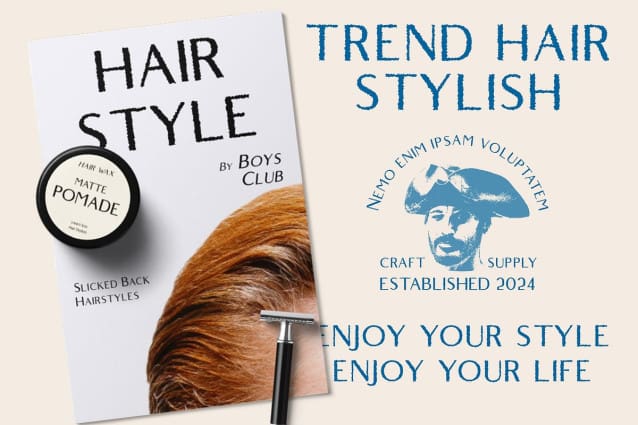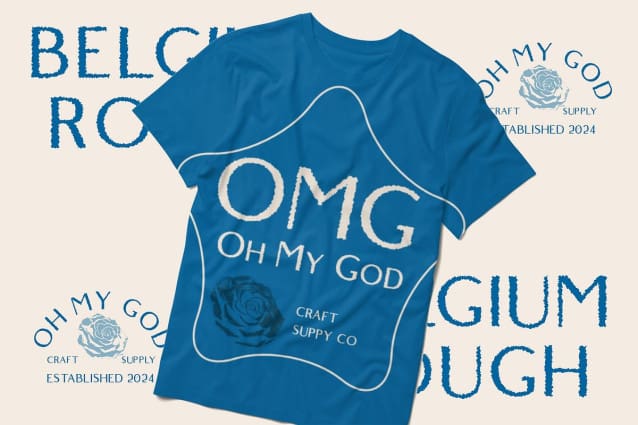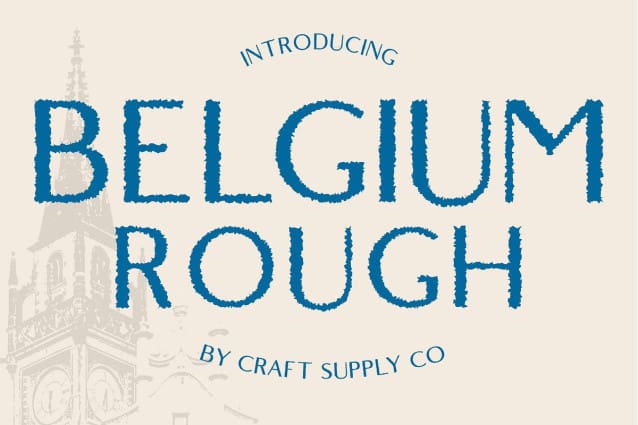
Belgium Rough Font
Belgium Rough Font: Bold and Textured Display Typeface. Dynamic Sans Serif Design Belgium Rough presents a distinctive sans serif display typeface with a bold and dynamic appearance. Its clean lines and rugged texture create a captivating visual impact.
Rough Texture for Visual Interest The rough texture effect adds depth and character to This font, making it an ideal choice for attention-grabbing display projects. Each character exudes a sense of raw authenticity and uniqueness.
Versatile Display Applications Suited for a wide range of display applications, This font stands out in branding, signage, posters, and digital media. Its bold presence and textured finish ensure effective communication in various contexts.
Effortless Elegance with Rough Edges This font effortlessly combines elegance with ruggedness. The rough edges add a touch of spontaneity and personality to the font, making it a versatile choice for both modern and vintage-inspired designs.
Distinctive Display Typography With its bold sans serif design and rugged texture, This font offers a unique blend of elegance and authenticity for display typography. Whether used in print or digital media, it adds visual interest and personality to any project. Step into the world of This font and elevate your designs with its dynamic charm.